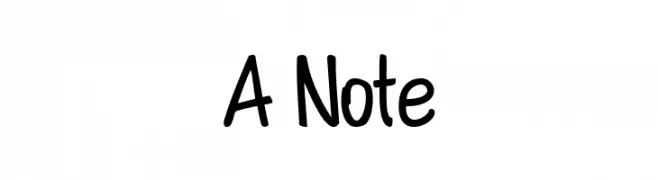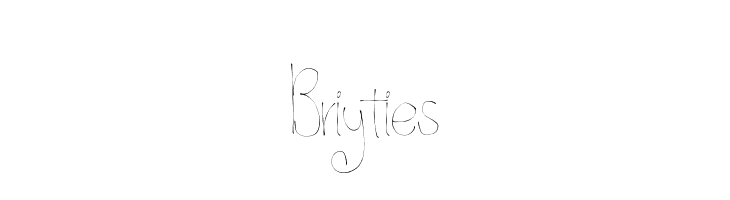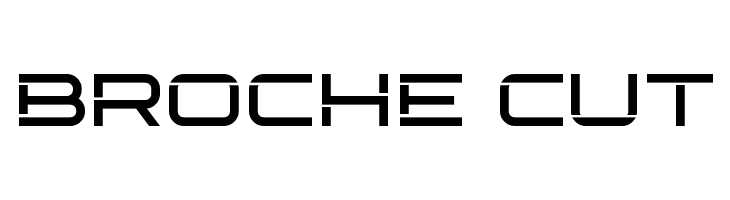
A bold serif font with classic, authoritative characteristics.
An elegant script font with intricate loops and modern calligraphic style.
A modern calligraphy font with elegant, flowing cursive letters.
A bold, playful font with rounded edges and a retro pop art vibe.
A thin, elegant font with elongated strokes and a whimsical touch.
A modern, geometric font with angular lines and unique cut-out sections.
A bold, dynamic script font with a playful, brush-like texture.
A playful, flowing script font with smooth, rounded characters.
An artistic, medieval-inspired font with sharp serifs and elegant curves.